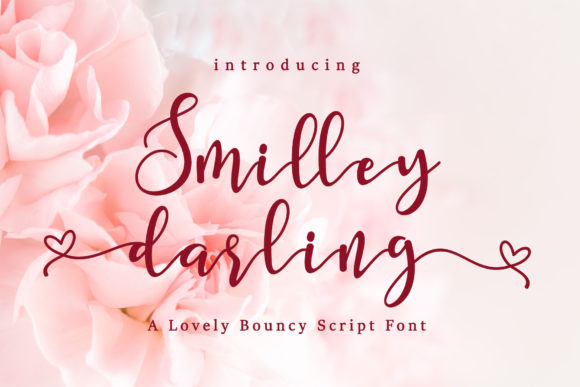
Unleash the Enchanting Charm of Smilley Darling: A Script Font That Captures Hearts
In a world where individuality and expression reign supreme, Smilley Darling emerges as a captivating script font, ready to transform your creative endeavors into mesmerizing masterpieces. This exquisite font family, meticulously crafted by tinyhandletter, embodies the essence of elegance and charm, making it the perfect choice for those seeking a touch of whimsy and sophistication in their designs.
Immerse yourself in the world of Smilley Darling, where flowing lines and graceful curves dance harmoniously, creating an enchanting visual symphony. Each letter, meticulously designed with a keen eye for detail, exudes a sense of playfulness and joy, inviting you to embark on a journey of creativity.
With its beautiful swashes and ligatures, Smilley Darling adds a touch of magic to your designs. Whether you're creating wedding invitations that evoke a sense of timeless romance, thank you cards that express heartfelt gratitude, or eye-catching logos that leave a lasting impression, this font is your perfect companion.
Discover the versatility of Smilley Darling, a font that effortlessly adapts to a myriad of design projects. Its charm shines through on greeting cards, business cards, quotes, and any creation that calls for a handwritten touch. Let your imagination soar as you witness the transformation of ordinary words into captivating works of art.